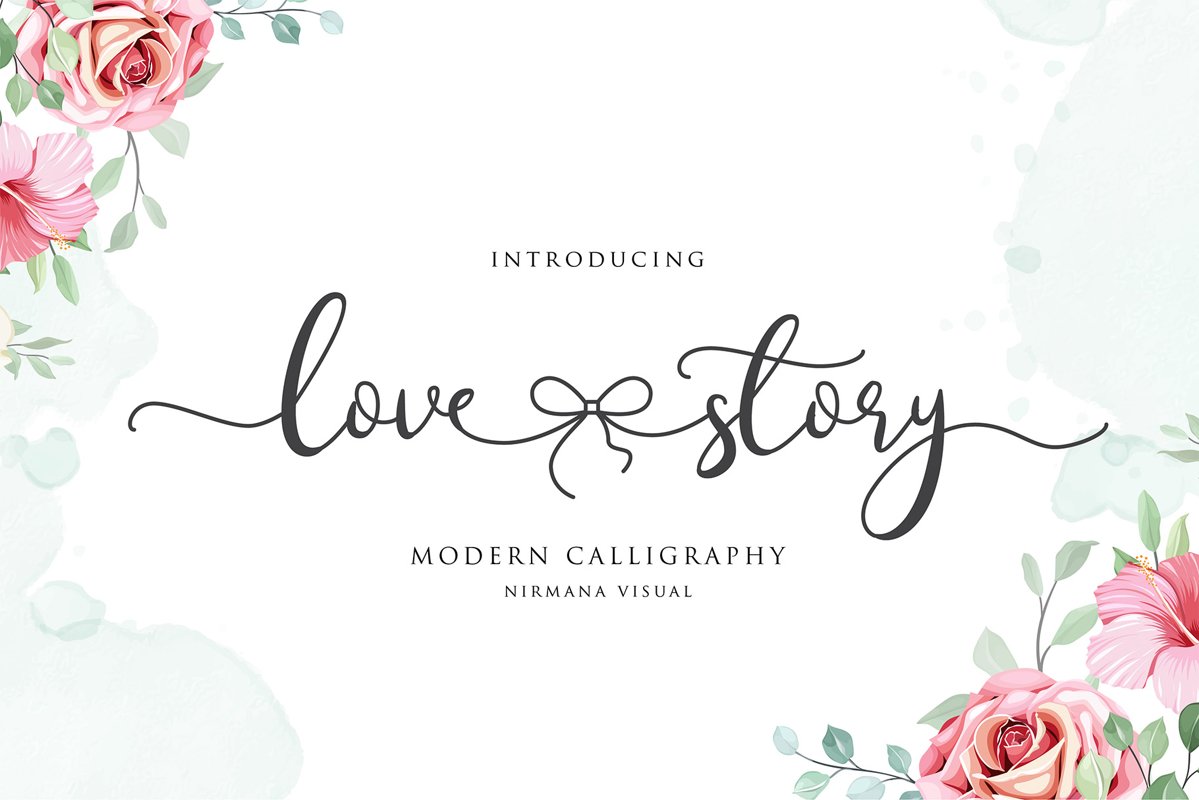
Lovestory - Romantic Font
Lovestory
Lovestory is a modern calligraphy font,
It is perfect for branding,logo, wedding invites, every other design which needs a handwritten romantic touch.